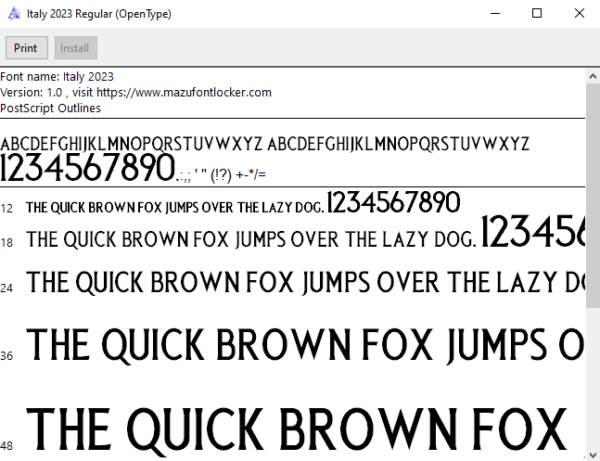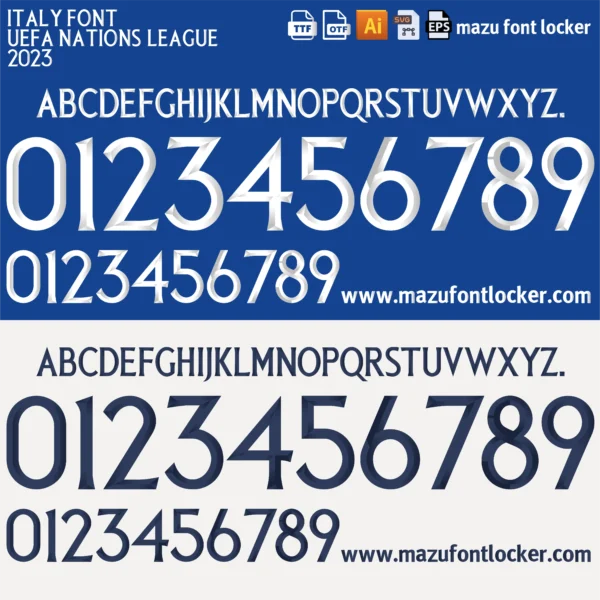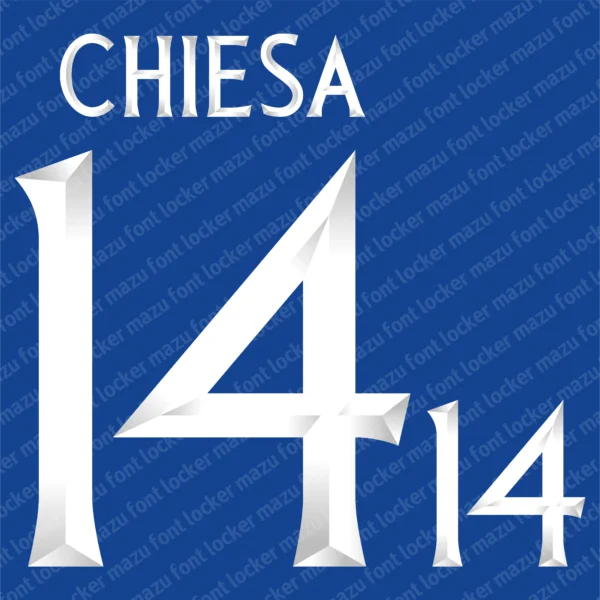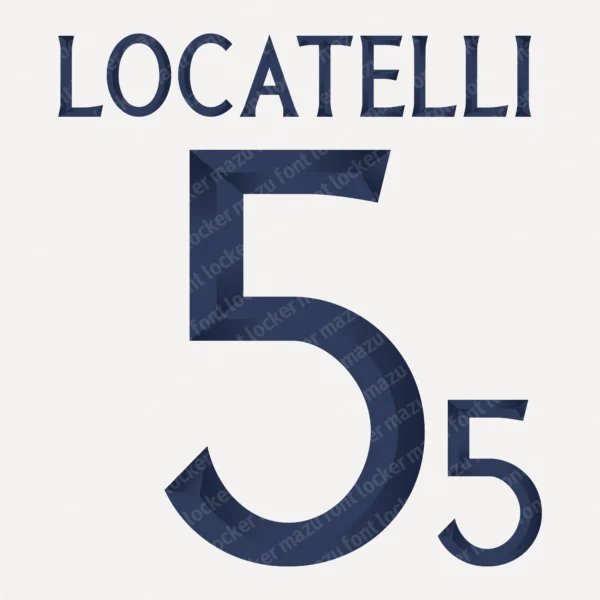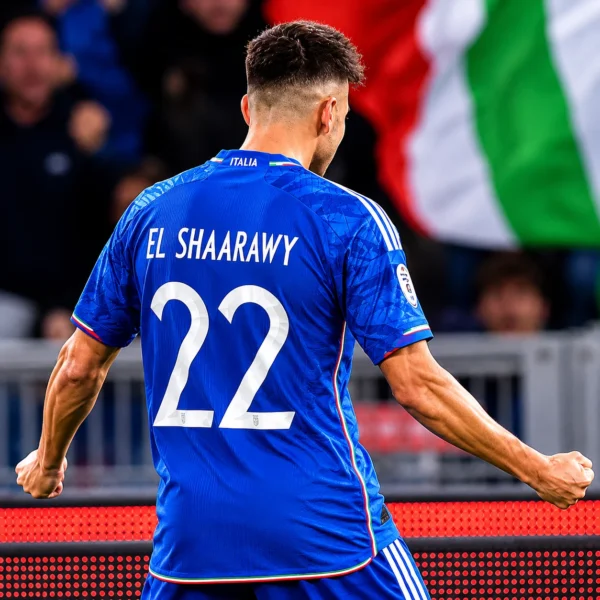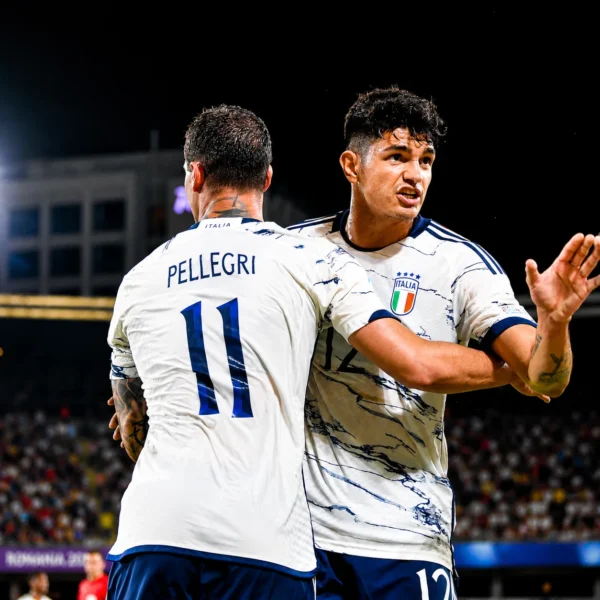
Italy 2023 Font Vector – Glorious Azzurri Masterpiece
Italy 2023 Font Vector – Authentic Azzurri Typeface
The Italy 2023 Font Vector is a premium typeface that accurately recreates the official match lettering worn by the Italian National Team during the 2023 international football season. This high-quality vector font kit captures the bold, elegant, and modern typography that represents the pride, passion, and rich football heritage of the Azzurri.
Designed for professional designers and passionate Italy supporters, the Italy 2023 Font Vector delivers perfect authenticity for creating realistic jersey mockups, fan merchandise, matchday posters, social media graphics, and international football content. It pairs beautifully with Italy’s iconic blue kit, symbolizing one of the most successful and respected national teams in football history.
Why Choose Italy 2023 Font Vector
This font stands out because of its sharp vector precision and strong national team identity. Every letter and number is crafted to match the exact style used on the players’ shirts during the 2023 season. Whether you are creating realistic kit templates or exciting Italy-themed content, the Italy 2023 Font Vector gives your designs that authentic Azzurri matchday atmosphere.
The letterforms in the Italy 2023 Font Vector are bold, clean, and highly readable. The strokes feature modern geometric construction with elegant proportions, creating a premium appearance that stands out on jerseys while preserving Italy’s timeless football tradition.
The numerals feature balanced curves and crisp edges, delivering a confident and professional appearance. This vector design ensures flawless scalability and exceptional legibility across both print and digital applications.
• Full uppercase A–Z and numbers 0–9 in authentic Italy 2023 style
Italy 2023 International Campaign